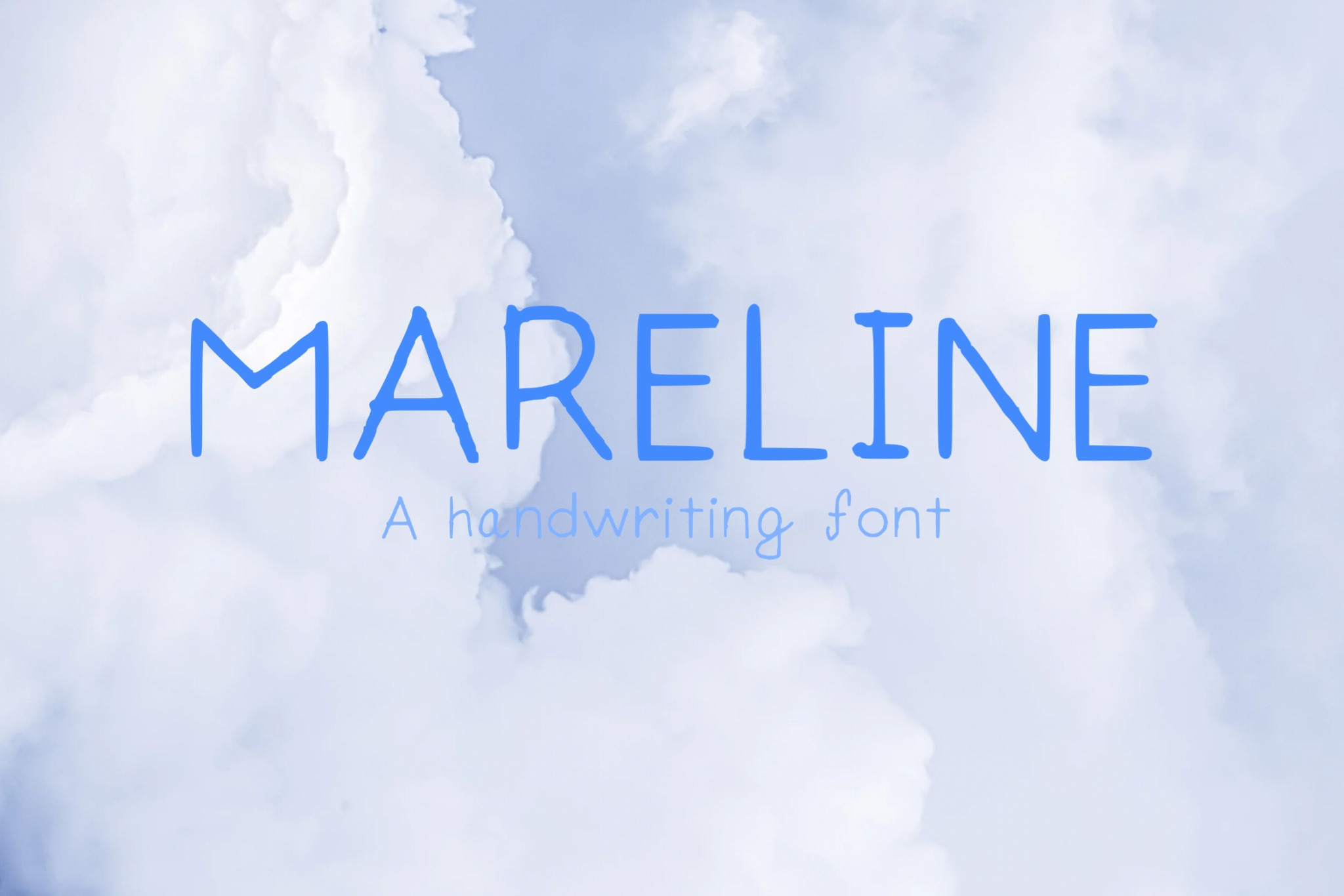
Mareline | A Handwriting Font
Are you looking for a font that a has a little personal touch?
Introducing Mareline , a handwriting font.
- Has a handwriting touch
- Elegant and Aesthetic
- Looks Playful
What is it suitable for:
- Posters
- Logos
- Invitation Cards
- Book Covers
- Goodnotes app